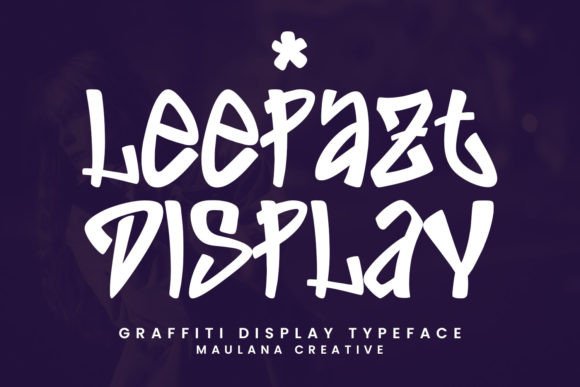
Introducing Leepazt Font: The Ultimate Graffiti Display Font for Bold Designs
In the world of typography, fonts play a crucial role in conveying the tone and personality of a design. When it comes to creating bold and eye-catching visuals, a unique and energetic font can make all the difference. This is where Leepazt Font comes in – a graffiti display font that brings street art vibes to your designs. In this article, we’ll dive into the world of Leepazt Font, exploring its features, benefits, and uses, as well as provide tips on how to incorporate it into your design projects.
What is Leepazt Font?
Leepazt Font is a bold and energetic typeface that is inspired by the vibrant and dynamic world of graffiti art. With its edgy and street-style aesthetic, this font is perfect for designers who want to add a touch of urban cool to their projects. Leepazt Font is designed to make a statement, with bold lines, irregular shapes, and a sense of movement that gives it a lively and energetic feel.
Key Features of Leepazt Font
- Bold and Energetic: Leepazt Font is designed to grab attention with its bold and energetic style, making it perfect for posters, headlines, and other designs where you want to make a statement.
- Graffiti-Inspired: With its street art-inspired aesthetic, Leepazt Font adds a touch of urban cool to any design, making it ideal for urban-themed projects, music and art-related designs, and more.
- Dynamic and Edgy: Leepazt Font features dynamic and edgy lines that give it a sense of movement and energy, making it perfect for designs that require a bold and modern look.
- Versatile: Leepazt Font is a versatile typeface that can be used in a variety of design projects, from posters and flyers to logos and branding materials.
Benefits of Using Leepazt Font
So why choose Leepazt Font for your design projects? Here are just a few benefits of using this bold and energetic typeface:
- Adds a Touch of Urban Cool: Leepazt Font brings a touch of urban cool to any design, making it perfect for designers who want to add a bit of edge to their work.
- Grabs Attention: With its bold and energetic style, Leepazt Font is designed to grab attention and make a statement, making it perfect for posters, headlines, and other designs where you want to stand out.
- Easy to Read: Despite its bold and edgy style, Leepazt Font is surprisingly easy to read, making it perfect for designs where you need to communicate a message quickly and effectively.
- Unique and Memorable: Leepazt Font is a unique and memorable typeface that will help your designs stand out from the crowd and leave a lasting impression on your audience.
How to Use Leepazt Font in Your Designs
So how can you incorporate Leepazt Font into your design projects? Here are a few tips to get you started:
- Use it as a Headline Font: Leepazt Font is perfect for headlines and titles, where its bold and energetic style can really make a statement.
- Add it to Posters and Flyers: Leepazt Font is a great choice for posters and flyers, where its bold and eye-catching style can help grab attention and communicate a message quickly.
- Use it in Urban-Themed Designs: Leepazt Font is a natural fit for urban-themed designs, such as music and art-related projects, where its graffiti-inspired aesthetic can add a touch of authenticity.
- Experiment with Different Colors: Leepazt Font looks great in a variety of colors, so don’t be afraid to experiment and find the perfect hue to match your brand or design.
Tips for Pairing Leepazt Font with Other Fonts
When it comes to pairing Leepazt Font with other fonts, here are a few tips to keep in mind:
- Pair it with a Sans-Serif Font: Leepazt Font pairs well with sans-serif fonts, such as Arial or Helvetica, which provide a clean and modern contrast to its bold and edgy style.
- Use a Script Font for Contrast: For a more dramatic look, try pairing Leepazt Font with a script font, such as Pacifico or Great Vibes, which can add a touch of elegance and sophistication.
- Experiment with Serif Fonts: Leepazt Font can also be paired with serif fonts, such as Times New Roman or Georgia, which can add a touch of tradition and authority to your design.
In conclusion, Leepazt Font is a bold and energetic typeface that brings street art vibes to your designs. With its dynamic and edgy style, this font is perfect for making a statement and adding a touch of urban cool to any project. Whether you’re designing posters, flyers, or logos, Leepazt Font is a versatile and memorable typeface that is sure to elevate your typography and leave a lasting impression on your audience.